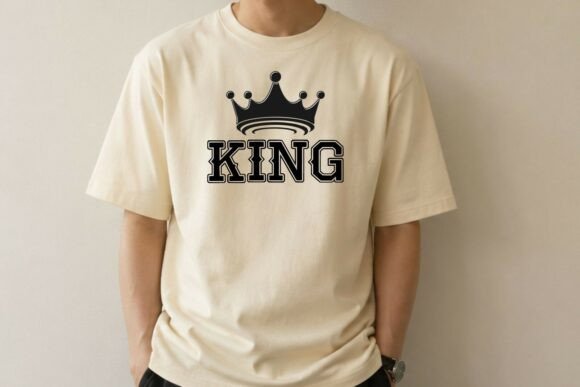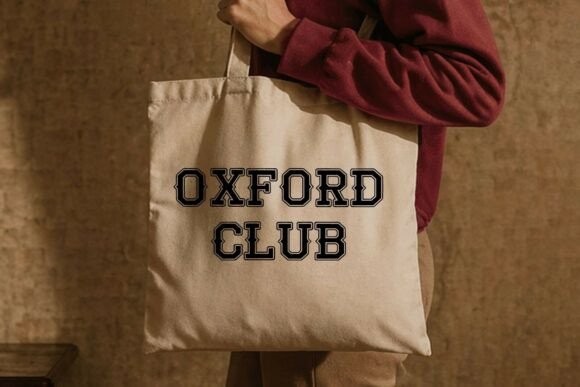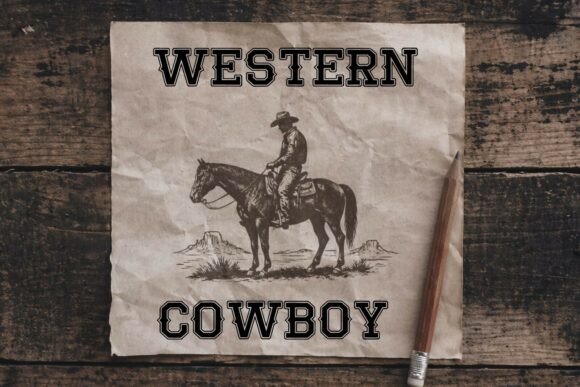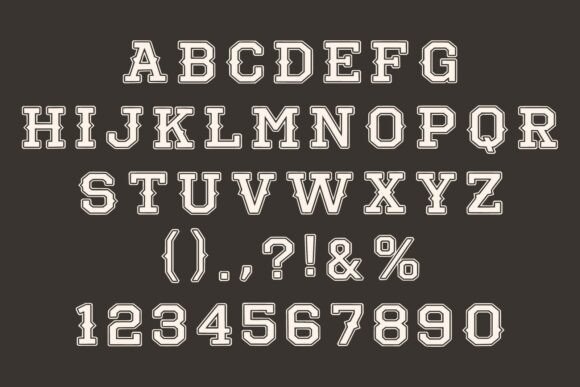
Introduction to Cowboy Varsity Font Font
Fonts play a crucial role in design, and the Cowboy Varsity Font font is a typeface that brings both character and versatility to any project. Whether you’re working on a branding project, a website, or a print design, the Cowboy Varsity Font font offers a unique style that can elevate your work.
Cowboy Varsity Western Vintage Font is a bold and stylish display typeface that blends classic western aesthetics with a sporty varsity outline style.
Featuring strong slab-inspired letterforms with layered outline details, this font delivers a powerful retro look perfect for eye-catching designs Ideal for logos, posters, branding, apparel, packaging, badges, and vintage-themed projects, it brings a unique mix of cowboy and collegiate vibes.
Key Features of Cowboy Varsity Font Font
Why Choose Cowboy Varsity Font Font?
The Cowboy Varsity Font font is more than just a typeface – it’s a design tool that helps you communicate your message with style and clarity. Its unique character set and versatile design make it suitable for a wide range of applications, from elegant invitations to bold headlines.
With its carefully crafted letterforms and balanced proportions, the Cowboy Varsity Font font ensures readability and visual appeal across all mediums.
What makes Cowboy Varsity Font font special?
The Cowboy Varsity Font font stands out with its unique design, exceptional readability, and versatility across various design applications.